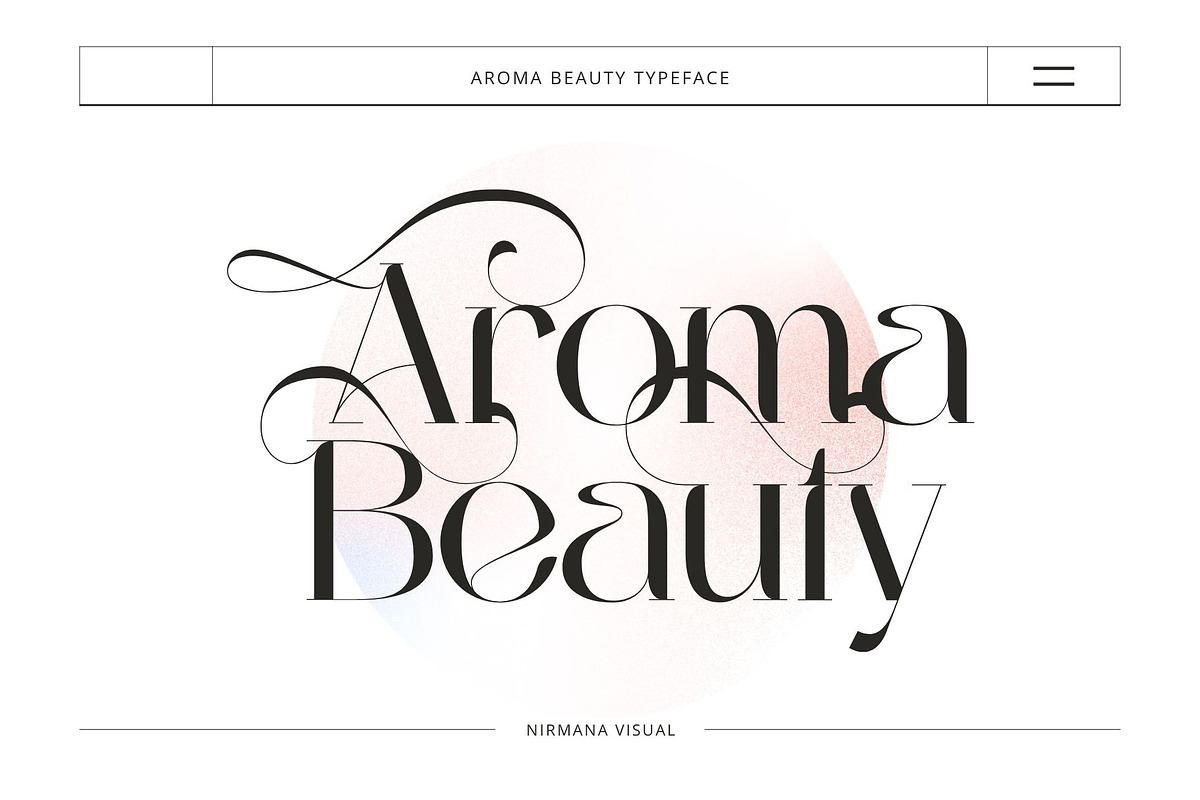
Aroma Beauty – Modern Serif Font Free Download is a luxurious and elegant typeface that blends classic serif elements with a modern, fashionable twist. With its high-contrast strokes, smooth curves, and stylish details, this font is perfect for beauty branding, high-end packaging, fashion editorials, wedding stationery, and Instagram-ready quotes.
Sophisticated yet soft, Aroma Beauty – Modern Serif Font Free Download adds a touch of refinement to any project. Whether you're designing logos, magazine spreads, or product labels, this font elevates your visuals with timeless grace and feminine flair.